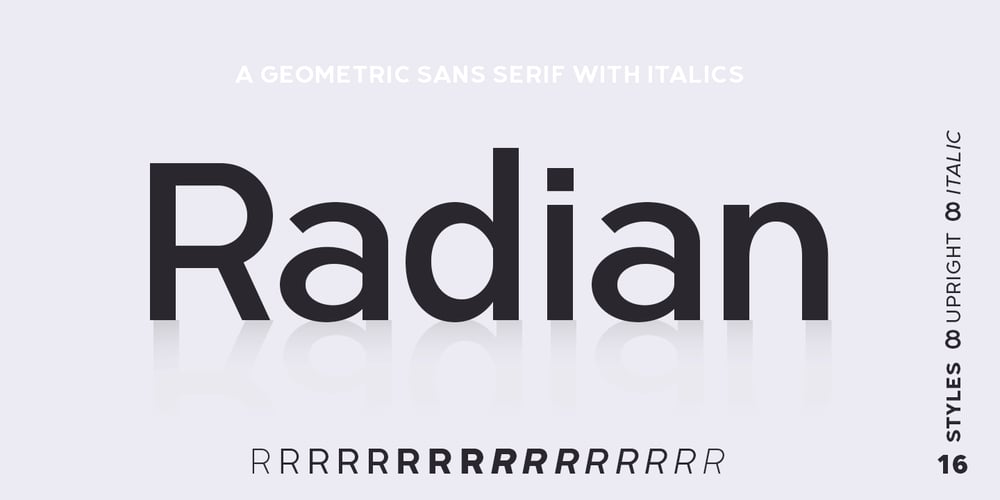
Radian Font Family was designed by Ayça Atalay and published by Ayca Atalay. Radian contains 14 styles and family package options. Radian is a modern geometric sans serif typeface that comes in 16 weights: 8 upright fonts and their matching italics.Radian works well in any graphic design project and purpose, both as a display typeface and in smaller sizes.